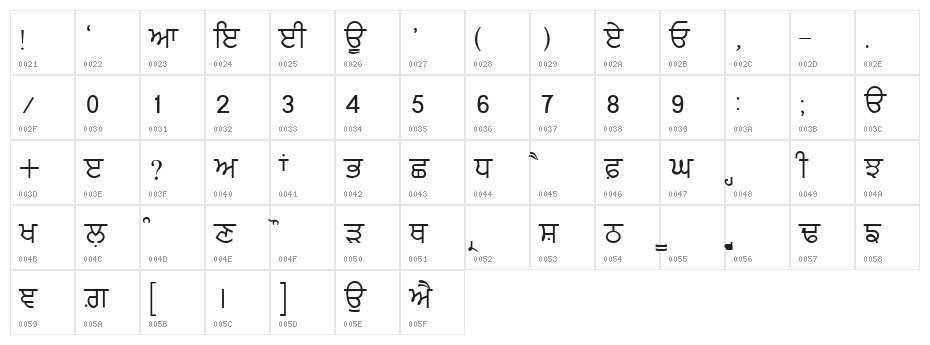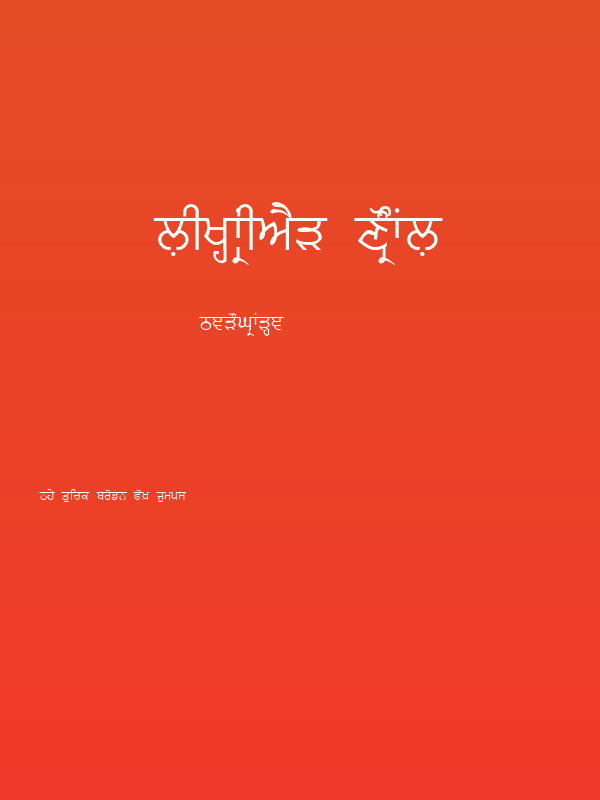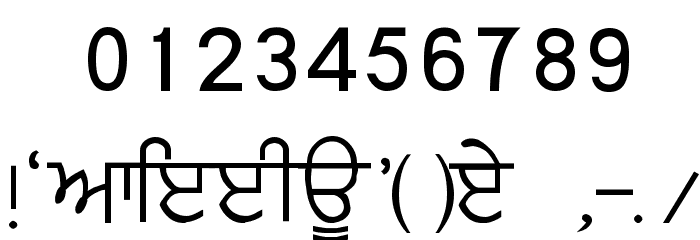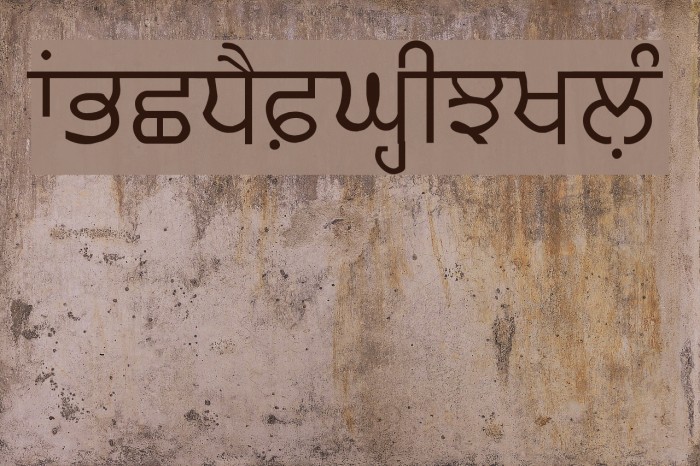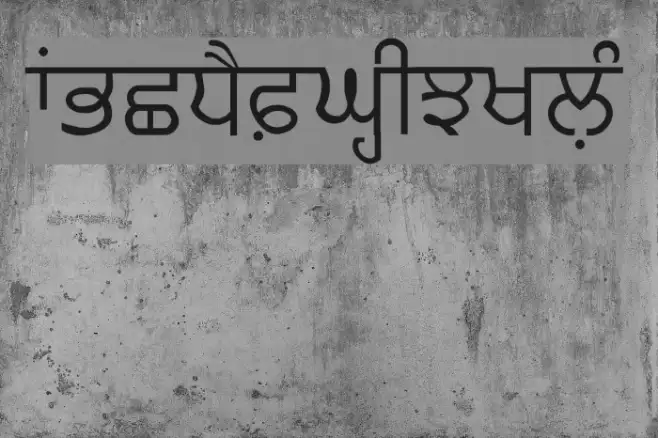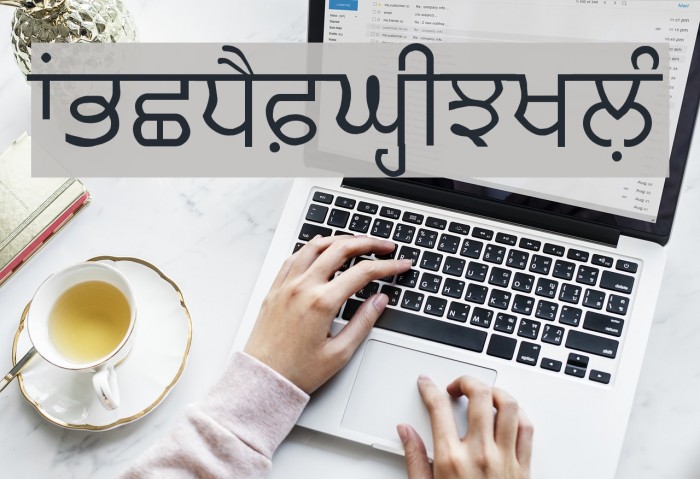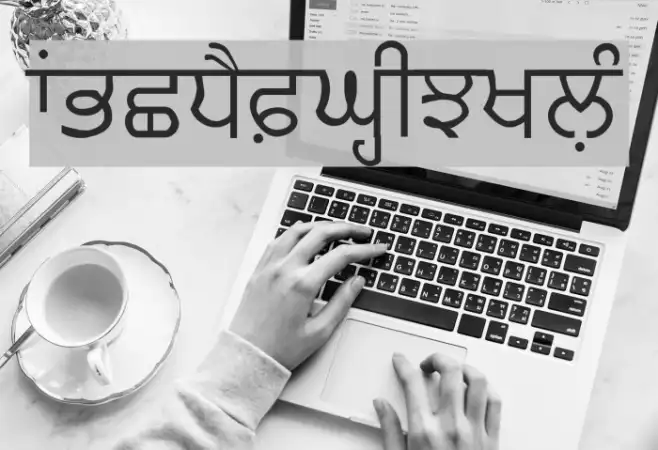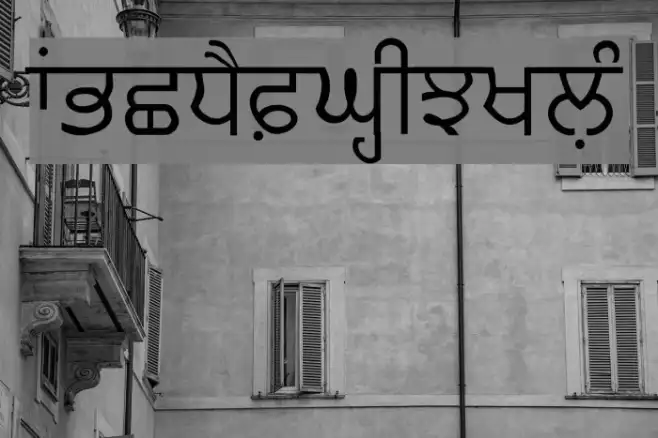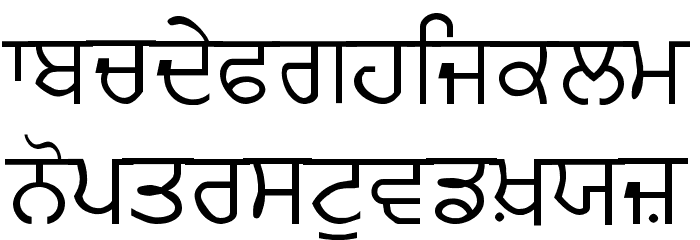
Likhari_P Normal Font
Likhari_P Normal Description
This font features a distinctive and elegant style, characterized by its flowing curves and intricate detailing. The script is reminiscent of traditional calligraphy, with a modern twist that makes it suitable for contemporary use. The characters are well-balanced, with a harmonious blend of thick and thin strokes that add a dynamic quality to the text. The font's design is both artistic and functional, making it ideal for a variety of applications. Its unique appearance is sure to capture attention and convey a sense of sophistication and creativity.